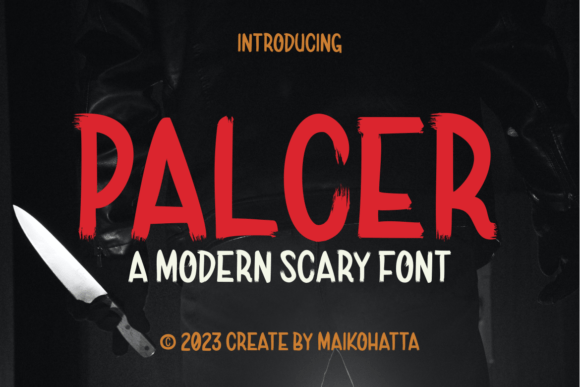
In the realm of typography, there exists a font family that conjures images of eerie moonlit nights, spine-tingling whispers, and the chilling touch of fear. Introducing Palcer Font, the ultimate decorative font crafted to unleash the spirit of Halloween celebrations. Created by the visionary mind of maikofarazhatta, this font breathes life into the darkness, transforming ordinary words into chilling tales.
Unleash the Horror: Palcer Font, a masterpiece of eerie elegance, invites you to delve into the realm of the unknown. Its intricate curves and sharp edges dance together, creating an atmosphere of haunting beauty. The letters, like whispers from beyond, possess a supernatural charm that captivates and enthralls.
Embrace the Supernatural: This font is a gateway to a world of mystery and intrigue. Allow your creativity to soar as you conjure up breathtaking Halloween invitations, posters that send shivers down the spine, and merchandise designs that evoke the spirit of the macabre. Palcer Font breathes life into greeting cards, transforming them into eerie missives that hint at hidden secrets.
Craft Haunting Websites: Let your website embrace the spirit of Halloween with Palcer Font. Its versatility extends to web design, allowing you to create haunting atmospheres that captivate visitors. Warning signs take on a new level of menace, while Halloween-themed websites become immersive experiences that leave users enthralled.
Immerse Yourself in the Darkness: Palcer Font is more than just a font; it's a portal to the supernatural. With its ability to cast shadows with every letter and evoke emotions that linger long after reading, this font will leave an unforgettable mark on your designs. Dare to embrace the darkness and let Palcer Font be your guide into the realm of horror and enchantment.